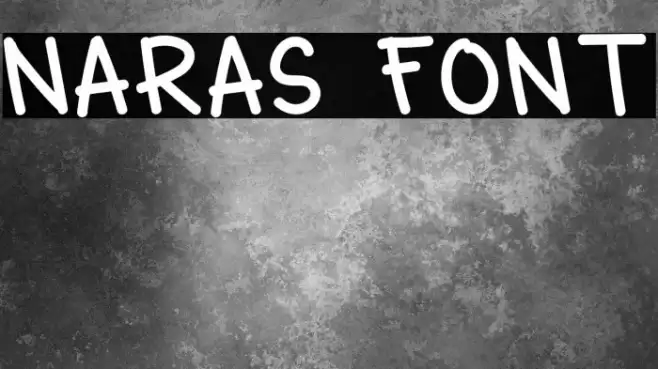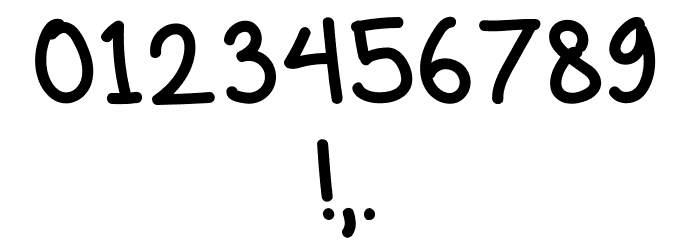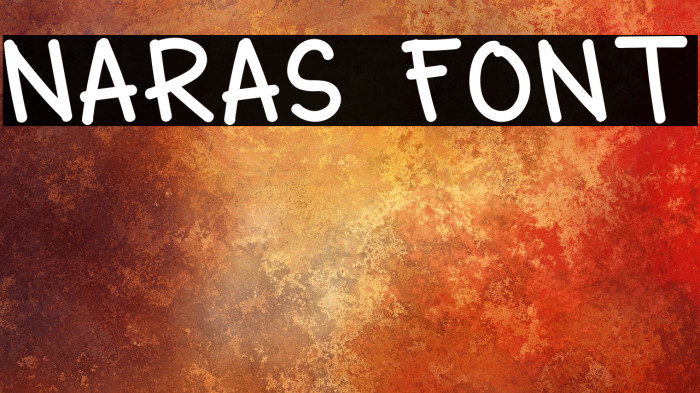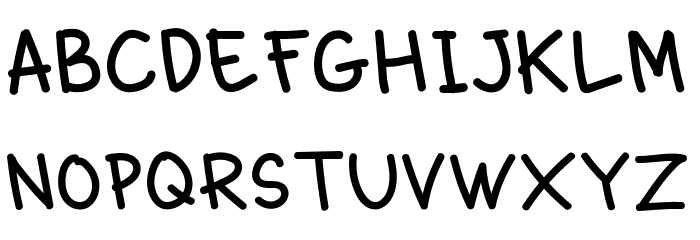
naras Font
naras Description
This playful and informal font features a handwritten style with rounded edges and a casual appearance. The letters are slightly uneven, giving it a friendly and approachable feel. The strokes are consistent in thickness, providing a uniform look across all characters. The font maintains a good balance between readability and style, making it suitable for various creative projects. Its whimsical nature is perfect for designs that aim to convey a sense of fun and lightheartedness.
A playful, handwritten font with rounded edges and a casual style from Comic fonts.
- Proposed Projects: Ideal for children's books, greeting cards, playful branding, and informal invitations.
- Overall Style: Casual
- Use Case: Headlines, Logos, Informal Text